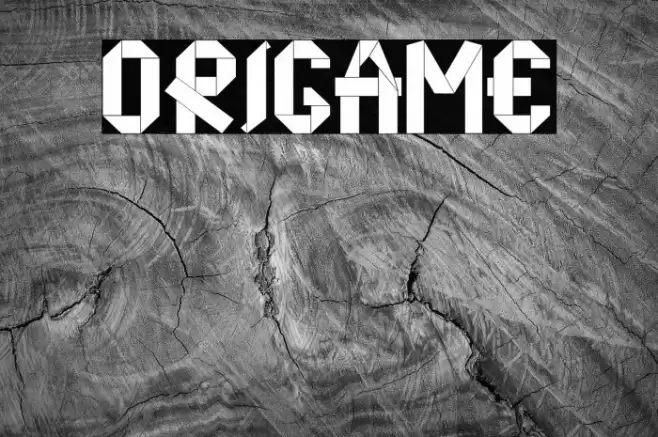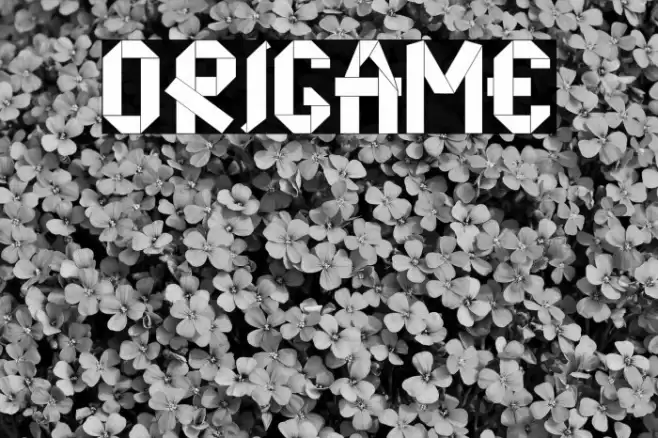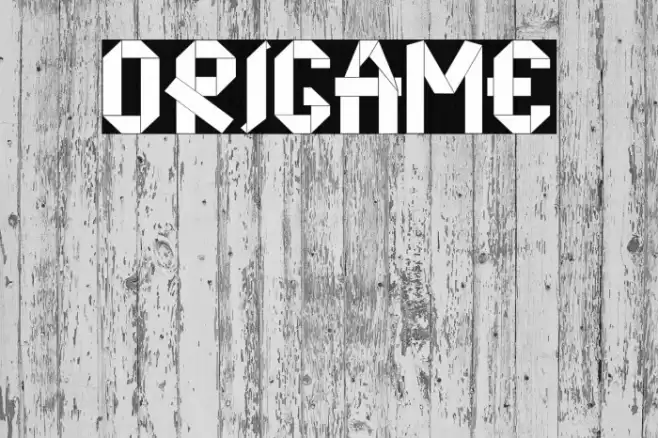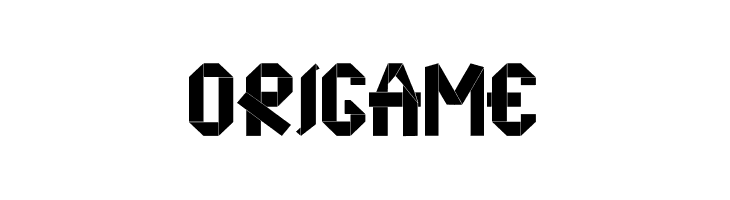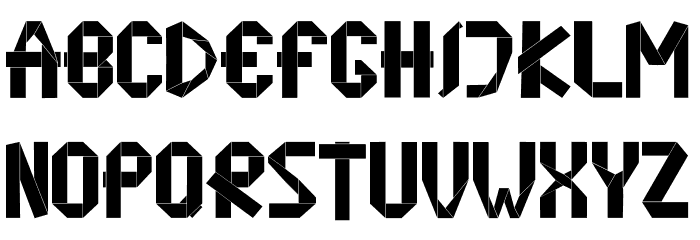
origame Font
origame Description
This font features a bold, geometric design that mimics the art of origami. Each character is constructed with sharp angles and straight lines, creating a sense of depth and dimension. The use of negative space is prominent, giving the letters a unique, folded appearance. The overall aesthetic is modern and artistic, making it ideal for projects that require a standout, creative typeface. The uppercase letters are particularly striking, with a consistent angular theme that runs throughout the alphabet.
A bold, geometric font inspired by origami, featuring sharp angles and creative use of negative space from Decorative fonts.
- Proposed Projects: Ideal for branding, posters, and artistic projects that require a modern and creative typeface.